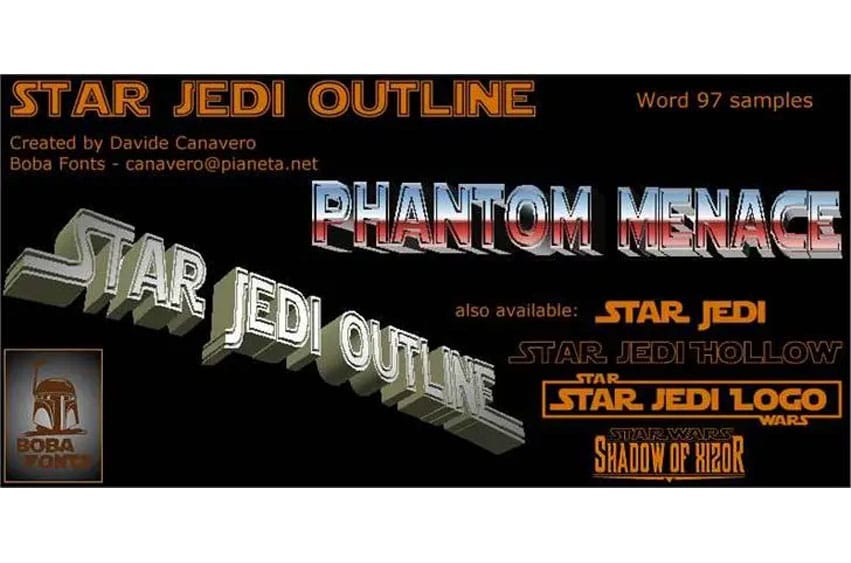
Star Jedi Outline Font were created by Boba Fonts Company and the specific letters or characters in Star Jedi Outline are all in lowercase and at the same time including some special characters.